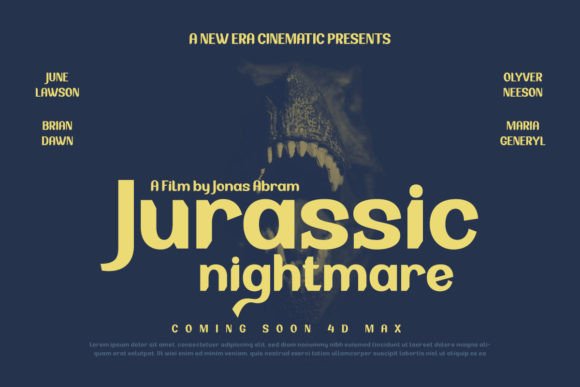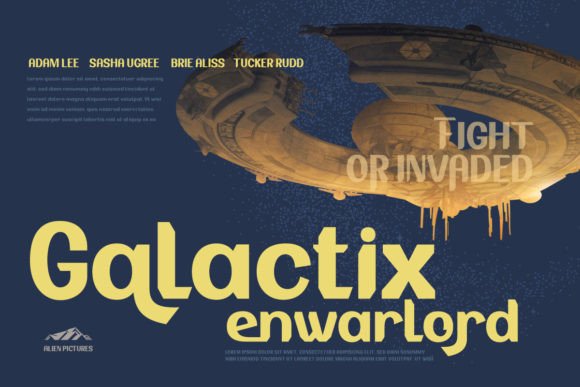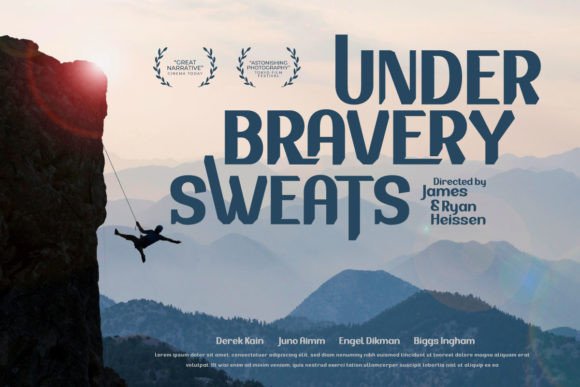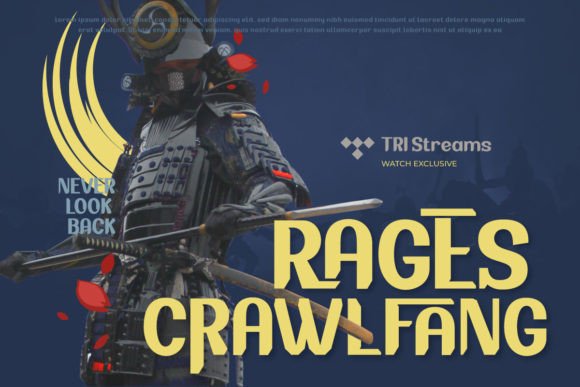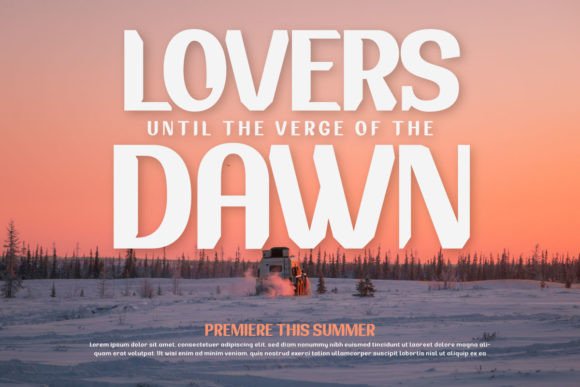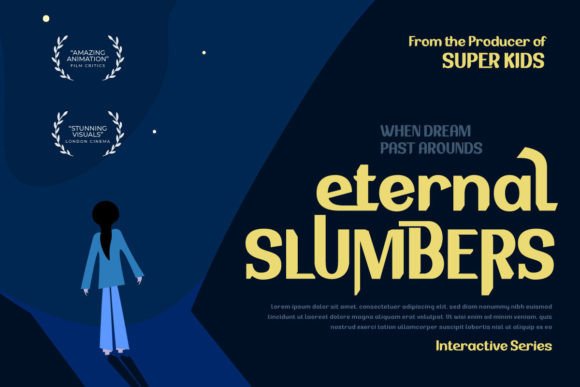
Unleash Your Inner Superhero: Introducing the Baxau Font
Imagine you’re brainstorming a new campaign for your favorite comic book series. You want the promotional posters to scream action, excitement, and heroism. As you start sketching out ideas, you know you need a font that can keep up with your vision. That’s where the Baxau Font comes in – a superhero-themed display font designed to bring strength, courage, and modernity to your projects.
With its bold, strong style, the Baxau Font is the perfect solution for creating an impressive and aggressive look. Whether you’re designing a comic book cover, a superhero logo, or a motivational poster, this font is sure to grab attention and deliver a compelling message. For designers, the Baxau Font offers endless possibilities for creativity and experimentation, making it a valuable addition to any design arsenal.
- Unique Characteristics: Baxau features a unique blend of modern and traditional design elements, making it suitable for a wide range of applications, from branding and advertising to editorial and publishing.
Baxau Font Review
I recently had the chance to work with the Baxau Font, and I must say it’s a unique and interesting choice. Here are my thoughts on what works well and what could be improved.
- Unique Character**: The Baxau Font has a distinctive look that can add a touch of personality to any design. Its quirky feel makes it perfect for projects that need a bit of whimsy.
- Good for Display Text**: This font is well-suited for display text, such as headings and titles, where its bold and playful nature can shine.
- Legible at Various Sizes**: Despite its quirky feel, the Baxau Font remains legible even at smaller font sizes.
- Limited Font Pairing Options**: The Baxau Font can be a bit challenging to pair with other fonts, which may limit its versatility in certain design projects.
- Not Ideal for Body Text**: While the font works well for display text, it may not be the best choice for body text due to its bold and playful nature, which can be distracting for large blocks of text.
Overall, I think the Baxau Font is a great choice for designers who want to add a bit of personality to their projects. While it may have some limitations, its unique character and good display text capabilities make it a valuable addition to any design toolkit.
Baxau Font is ideal for creative projects such as graphic design, digital art, or branding materials. It is also suitable for formal documents like resumes, business cards, or presentations. Use the font to add a touch of elegance and sophistication to your designs.
To get the most out of Baxau Font, use it in combination with other creative elements such as bold colors, striking imagery, or unique graphics. Experiment with different font sizes, styles, and arrangements to create visually appealing compositions.